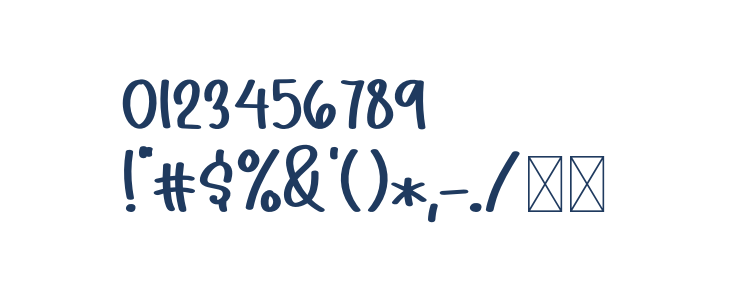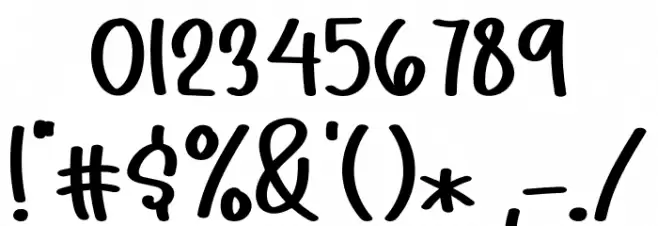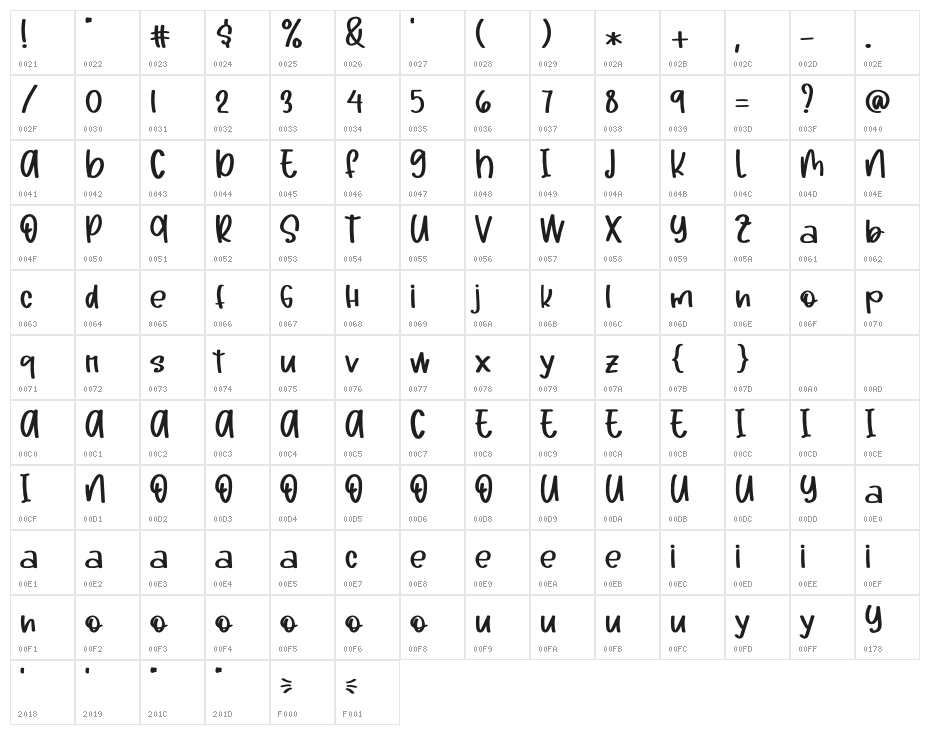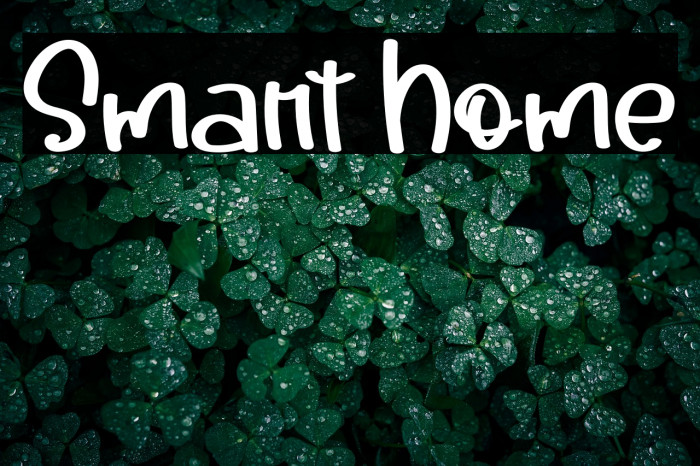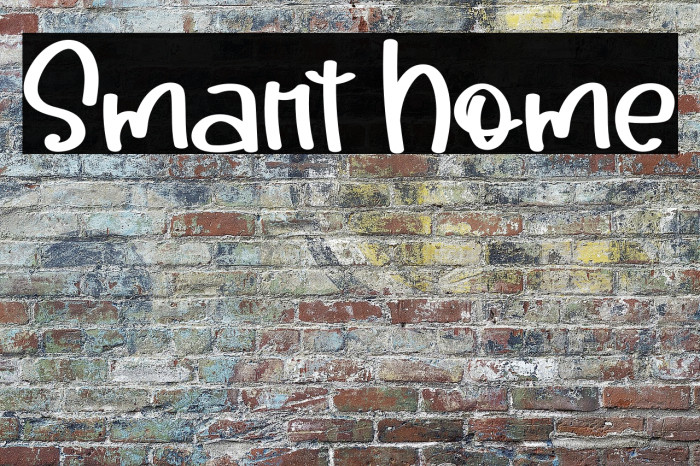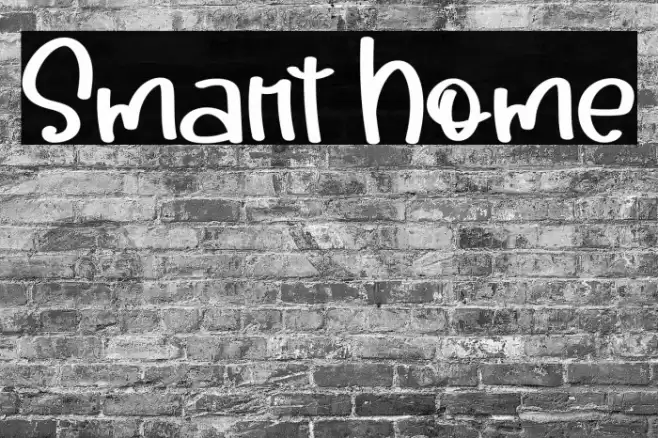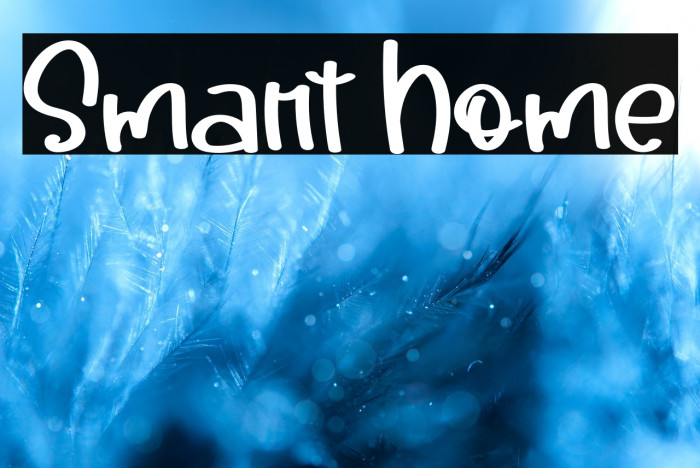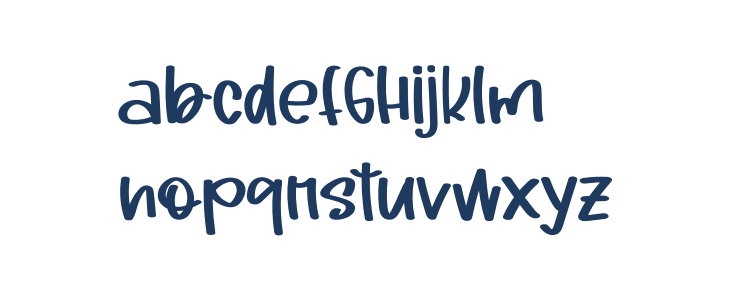
Smart Home Font
Smart Home Description
This font features a playful and casual handwritten style, characterized by its rounded and slightly irregular letterforms. The strokes are bold and consistent, giving it a friendly and approachable appearance. The uppercase and lowercase letters maintain a cohesive look, with a slight slant that adds to its informal charm. Numbers and special characters follow the same style, ensuring uniformity across all elements. The font's design is versatile, making it suitable for a variety of creative projects where a personal touch is desired.